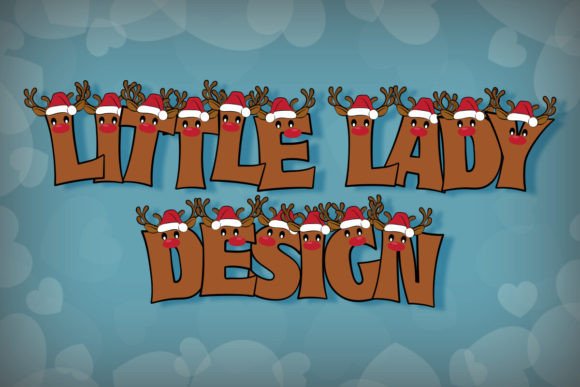
The Magic of Deer Christmas Font: Elevate Your Designs with this Gorgeous Color Font
I’ll never forget the design project that led me to discover the Deer Christmas font. I was working on a festive holiday campaign for a client, and I was struggling to find the perfect font to capture the essence of the season. The design had to be trendy, stylish, and convey a sense of wonder. That’s when I stumbled upon Deer Christmas, and it instantly became the star of the show! ✨
The Good: Why I’m Obsessed with Deer Christmas
- ✨ Stunning Color Font: Deer Christmas is a gorgeous color font that adds a touch of magic to any design.
- ✅ Trendy and Stylish: This font is perfect for designers who want to stay on top of the latest trends.
- 💡 Versatile: Whether you’re working on a holiday project or a non-holiday design, Deer Christmas can adapt to any theme.
The Not-So-Good: A Few Quirks to Keep in Mind
While Deer Christmas is an amazing font, there are a few things to keep in mind:
- ⚠️ Glyph Overload: With so many glyphs and stylistic alternates, it can be overwhelming to navigate. Take some time to explore the font and get familiar with its features.
- 🤔 Color Variations: While the font comes in various colors, some users might find the color palette limited. Experiment with different color combinations to find the perfect fit.
The Story Behind Deer Christmas
Deer Christmas was designed by a talented team of creatives who wanted to capture the magic of the holiday season. Inspired by the whimsy of snowflakes and the warmth of twinkling lights, they crafted a font that’s both trendy and timeless.
Q: Is Deer Christmas suitable for body text?
A: While Deer Christmas is a stunning font, it’s best suited for headlines and titles. For body text, consider using a clearer, more readable font.